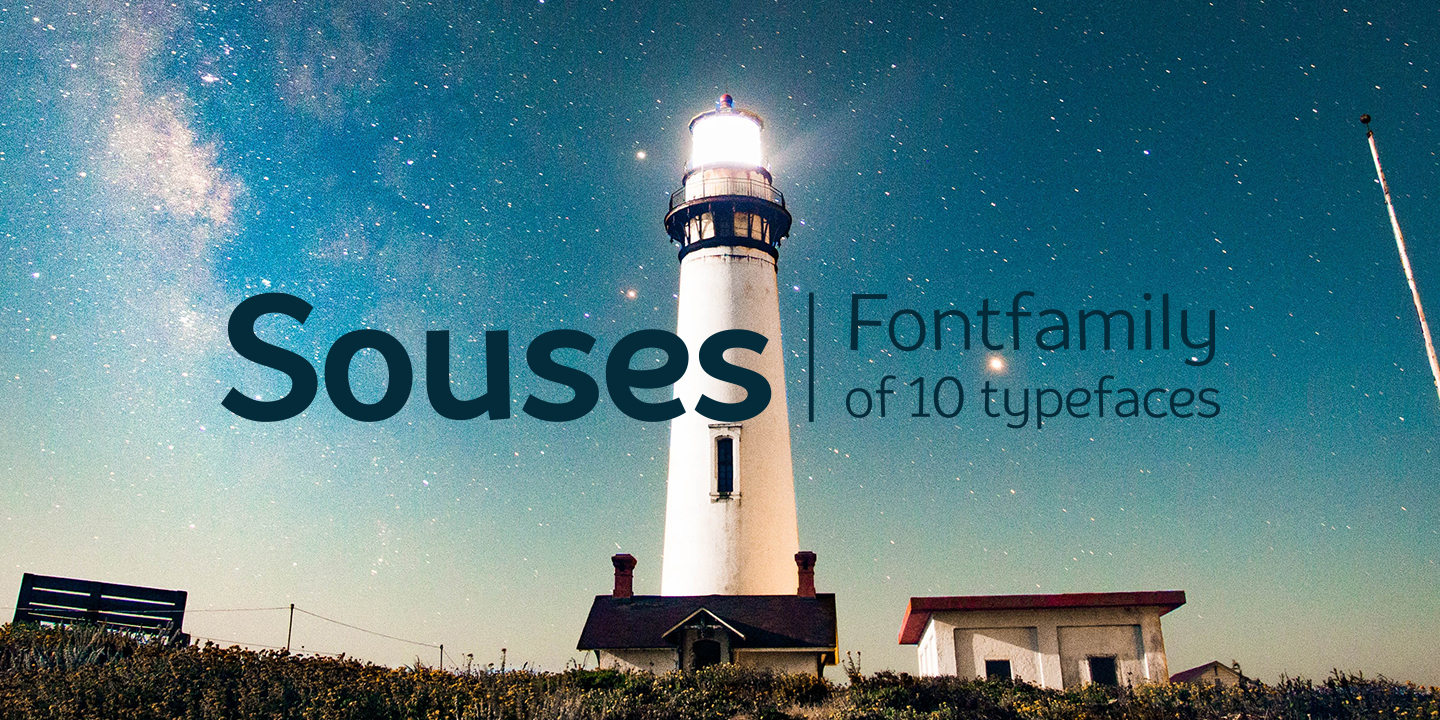
Souses Thin
Designed by Ivan Gladkikh, Souses is a sans serif font family. This typeface has ten styles and was published by Pinata.
Souses — original fontfamily, which are made by hand. Universal typefaces formula of 10 fonts: Thin, Light, Regular, Bold, Black and Italics. Souses ideal for use in themes: ecology, village, natural, handmade & toys. Handmade style of the fonts — an advantage that will create loyalty to your products & company.